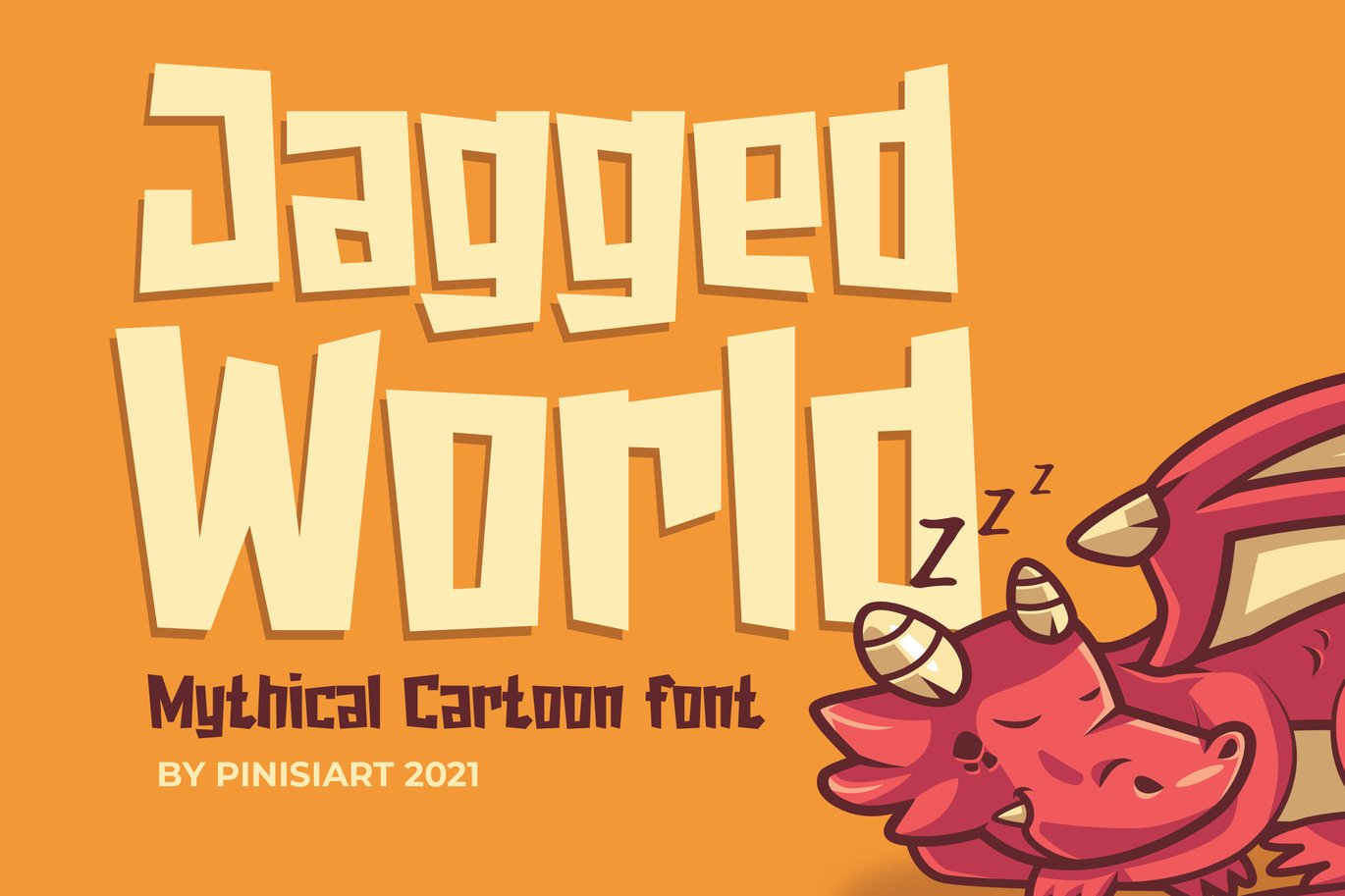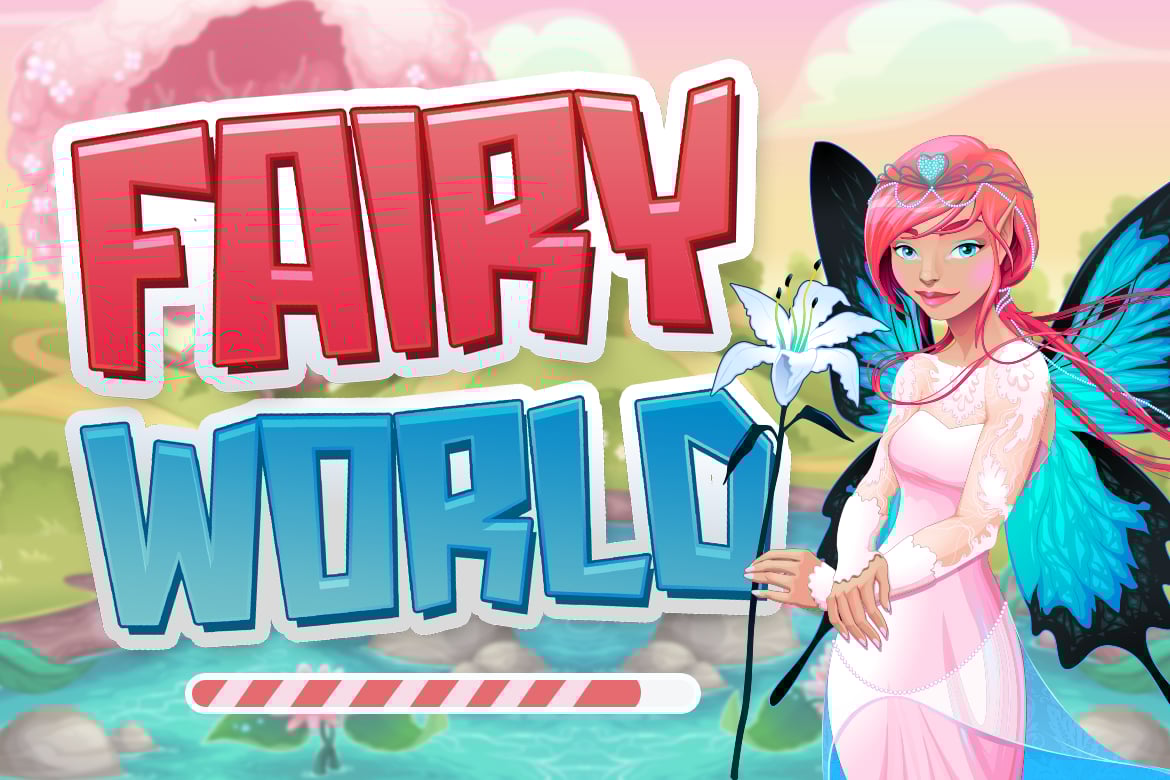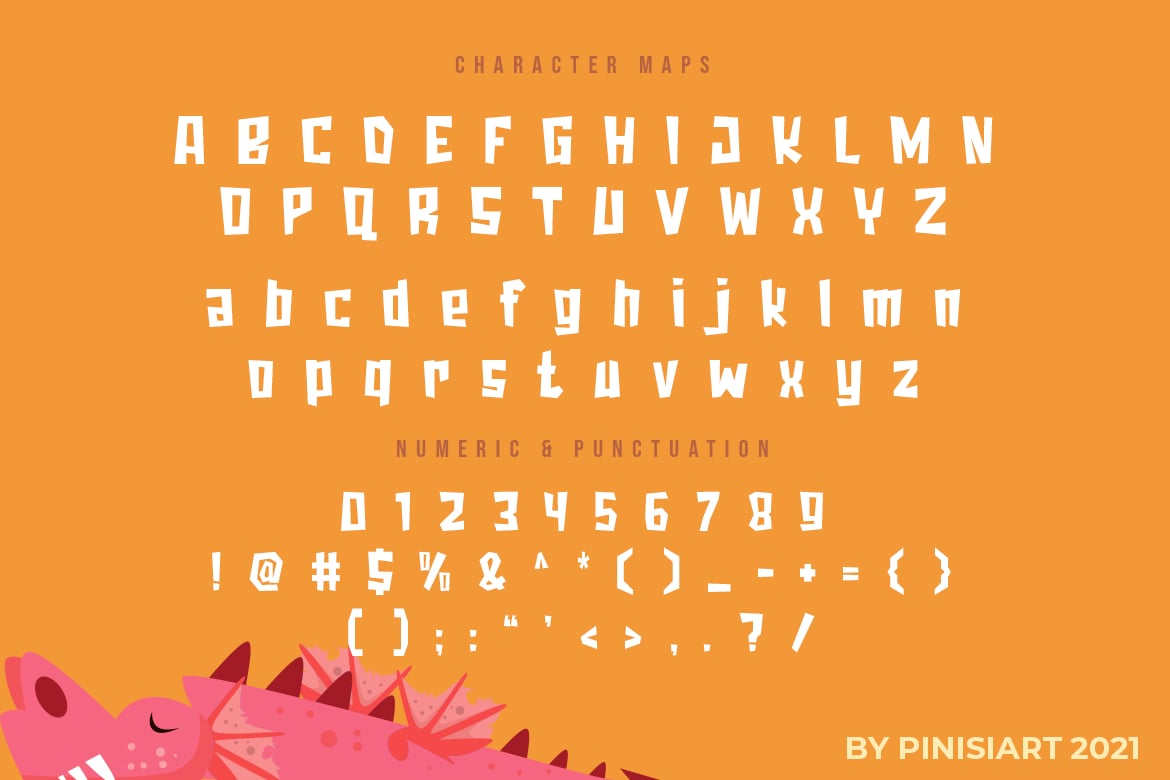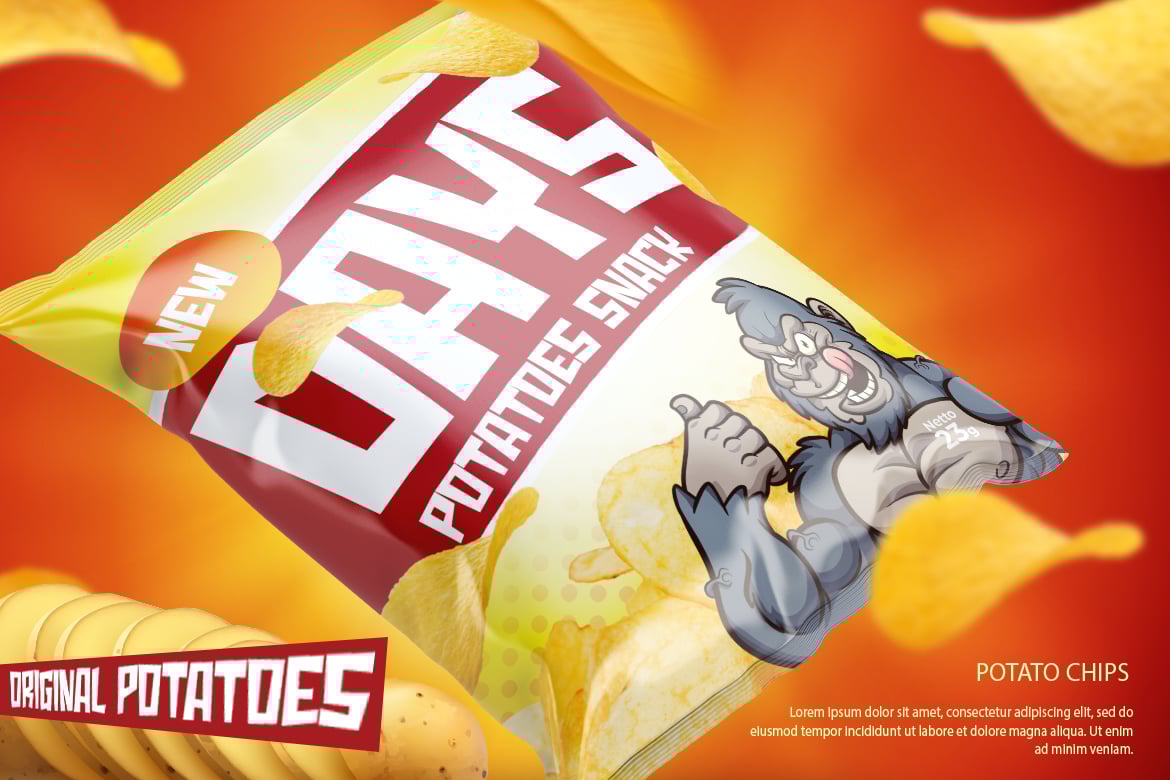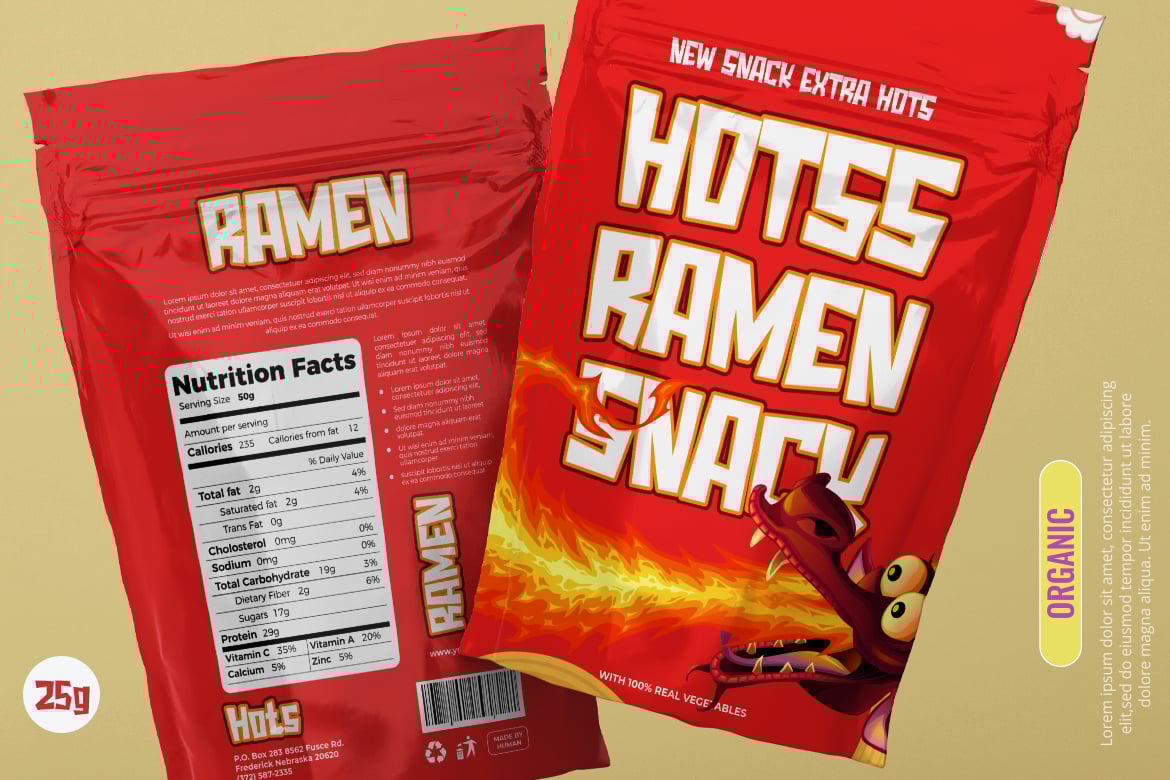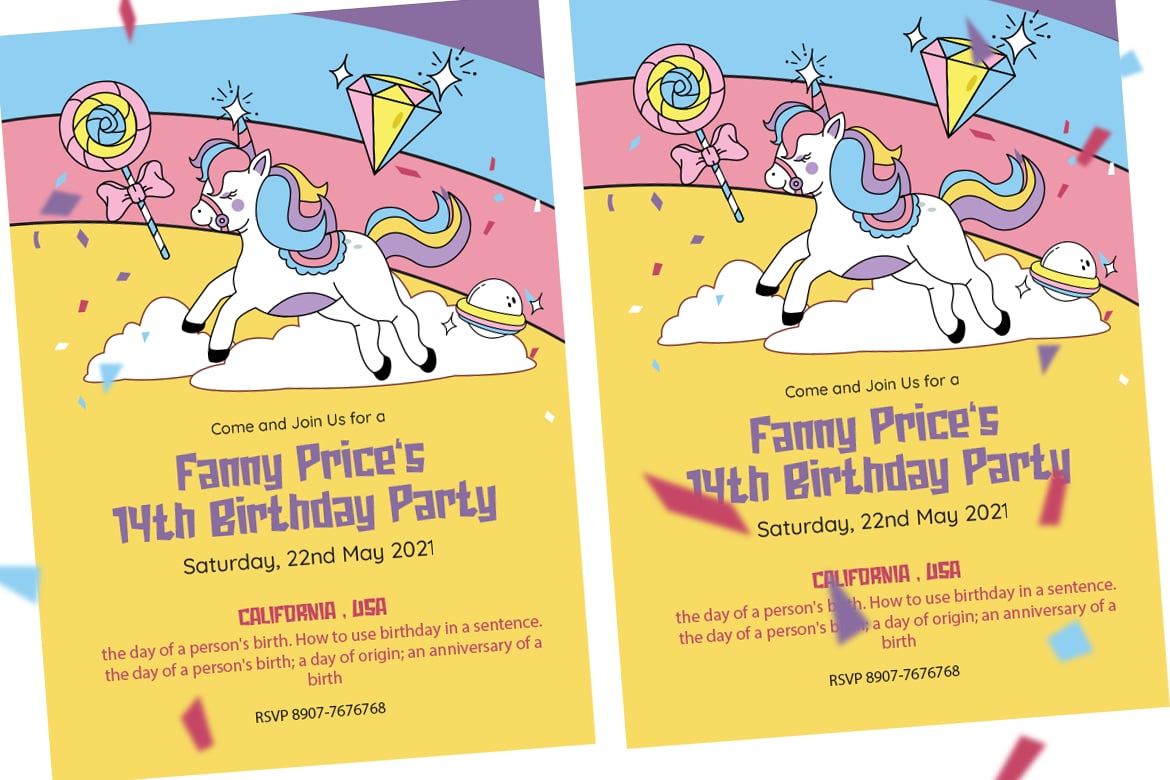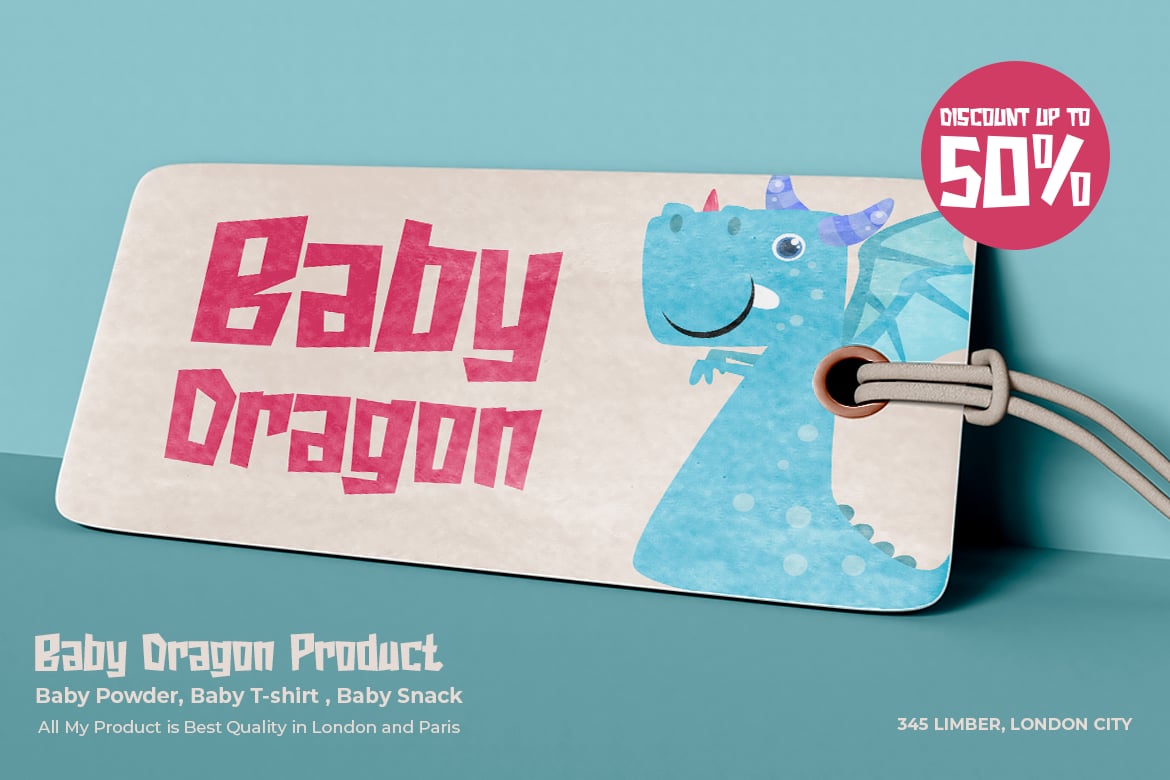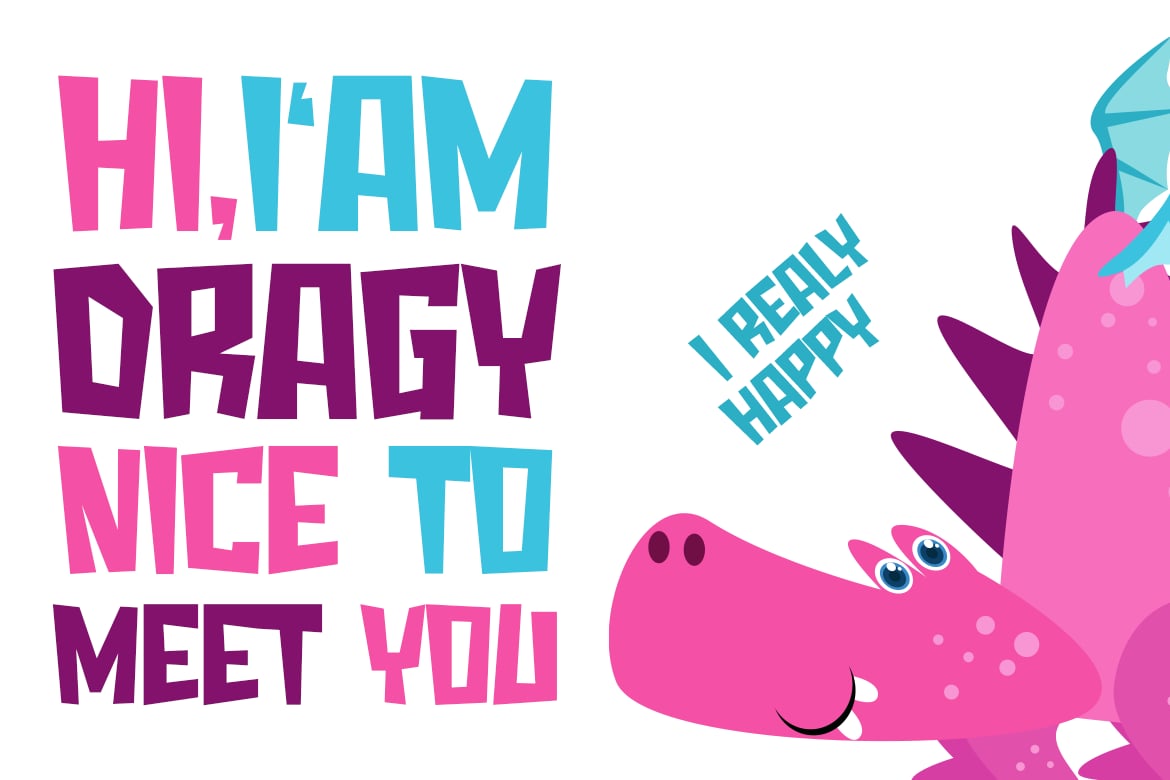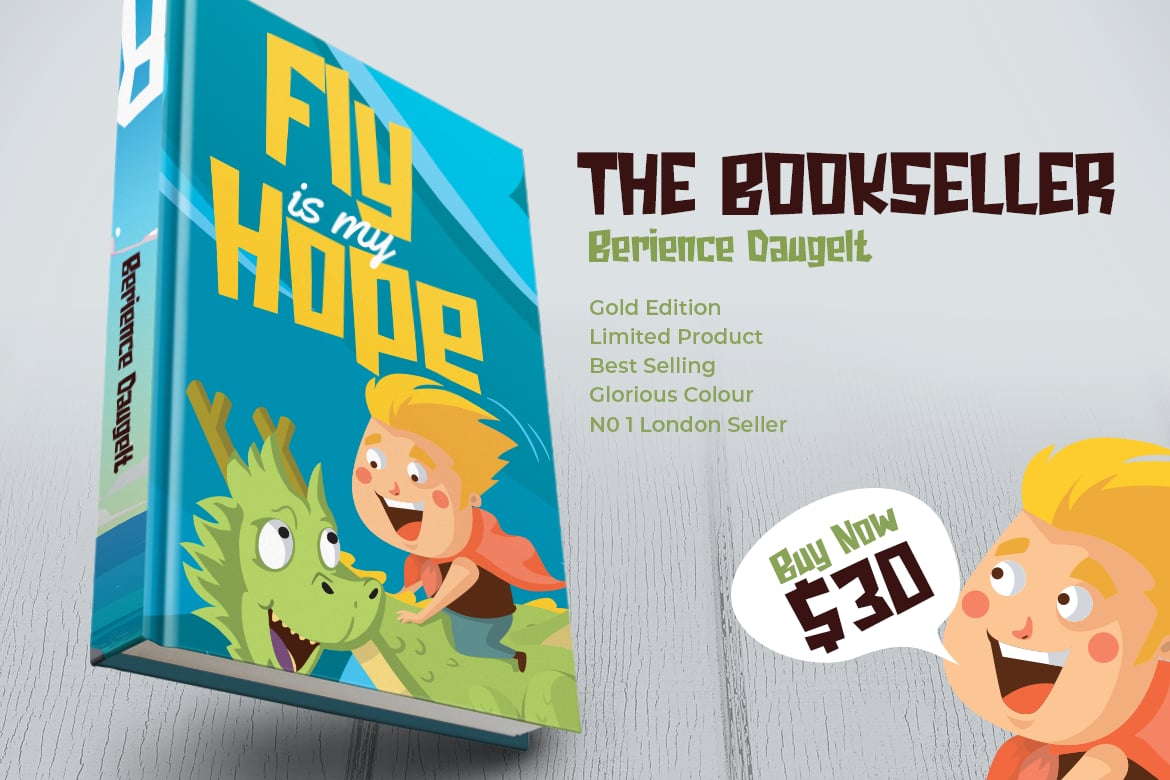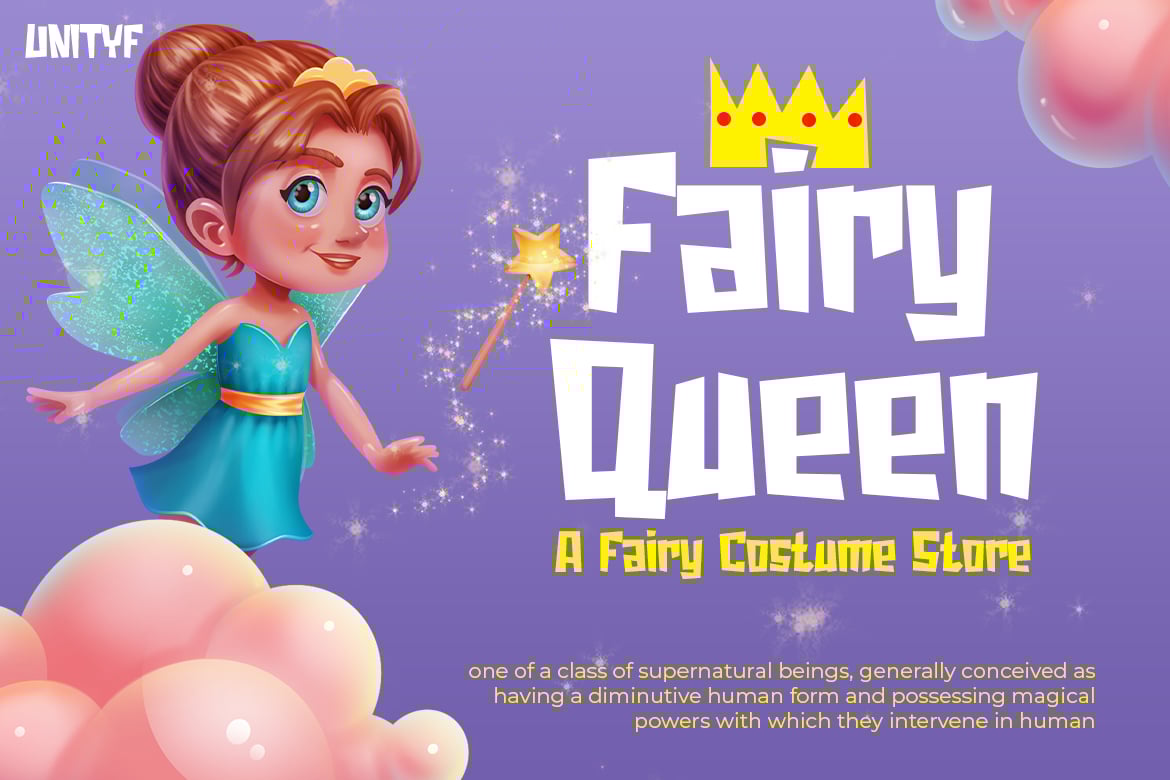
Jagged World – Mythical Cartoon Font
Dragon, Fairy, and Mythical creature are always mesmerizing to be seen, the world looks so magical back then.
Suit perfectly for imaginary themes books market, online games, stationary, school supplies font, poster, movie title, youtube covers, youtube thumbnails, social media page covers and so on…